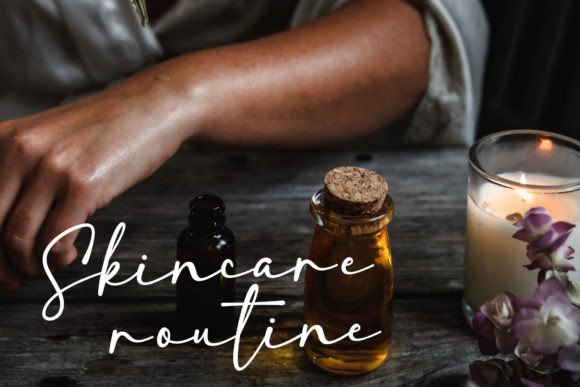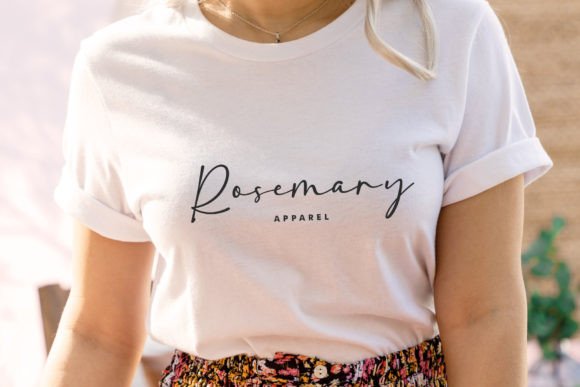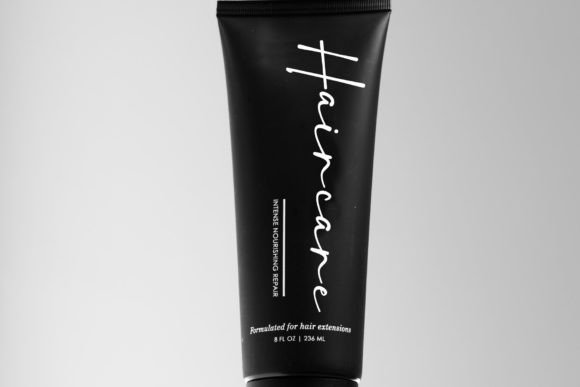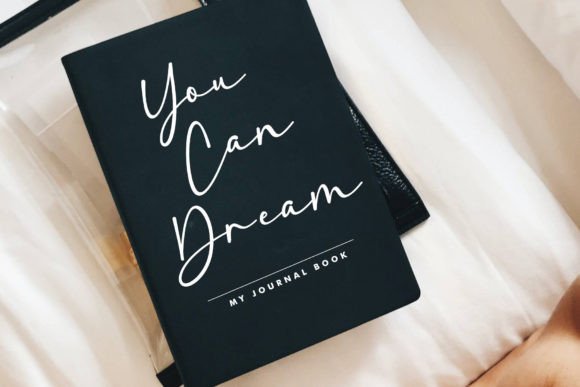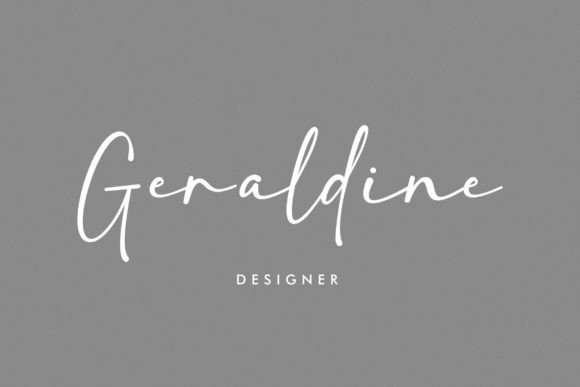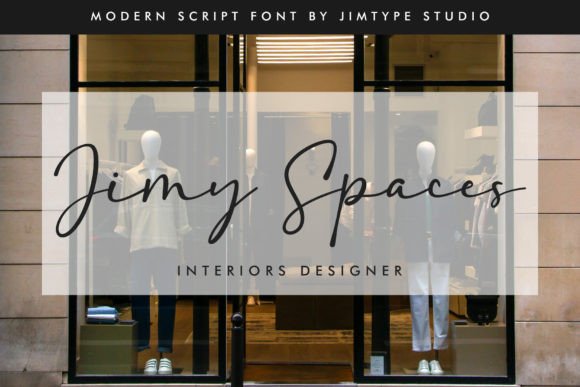
Find Your Signature Style with Adelaita Font
Have you ever been scribbling away in your notebook, trying to capture the perfect phrase for a client’s brand or a special invitation, only to realize that your handwriting just doesn’t quite cut it? We’ve all been there. That’s where the magic of Adelaita Font comes in – a beautiful, feminine handwriting script that brings a touch of sophistication and elegance to your designs.
Adelaita Font is more than just a font – it’s a way to add a personal, handwritten touch to your creative projects. With its flowing curves and subtle flourishes, it’s perfect for branding, invitations, and any project where you want to make a lasting impression. Whether you’re a seasoned designer or just starting out, Adelaita Font is a valuable tool that will help you elevate your work and make it truly unforgettable.
Adelaida Font Key Features
- Font Family: Adelaida Font
- Unique Characteristics: Adelaida Font features a unique blend of modern and vintage elements, with intricate details and ornate flourishes, making it ideal for high-end design projects.
- Font Style: Script, Brush Script, Handwritten
Review of Adelaita Font
I’ve had the chance to work with the Adelaita font, and overall, it’s a unique and visually appealing typeface. Here are some things that work well:
- ✨ Elegant and refined design that works well for luxury and high-end branding.
- ✨ Smooth, cursive lines that create a sense of sophistication and elegance.
- ✨ Versatility in its usage, as it can be used for a variety of purposes, from body text to headlines.
- ⚠️ Limited font sizes and styles available, which may limit its usage in certain projects.
- ⚠️ Not ideal for body text due to its elegant, cursive design, which can be difficult to read in large quantities.
- ⚠️ May not be suitable for digital applications due to its decorative nature.
Overall, I think the Adelaita font is a great choice for projects that require a touch of elegance and sophistication. However, it’s essential to consider its limitations and ensure it’s used in the right context to maximize its impact.
Tips for Getting the Most Out of Adelaita Font
Use Adelaita Font for headings and titles to create a visually appealing design. Experiment with different font sizes and styles to create a unique look. Additionally, use Adelaita Font in combination with other fonts to create a harmonious typography.
Adelaita Font is suitable for creative projects such as brochures, flyers, and social media graphics. It’s also great for headings and titles in presentations, reports, and documents.
For optimal readability, we recommend using a font size between 14-20 points and a line height of 1.2-1.5 times the font size. This will ensure that the text remains clear and easy to read, even at smaller sizes.